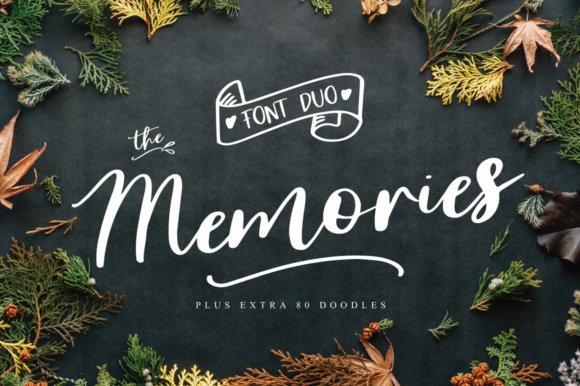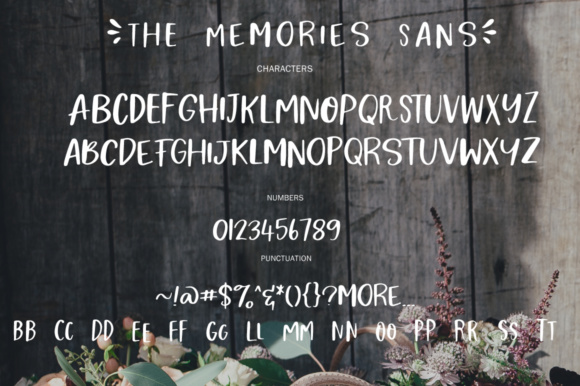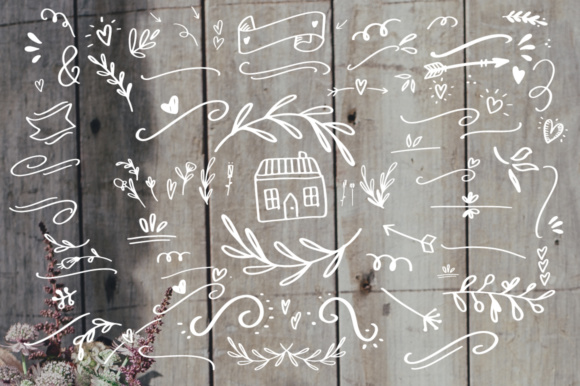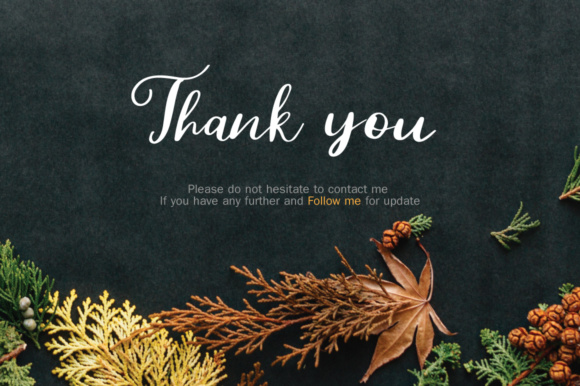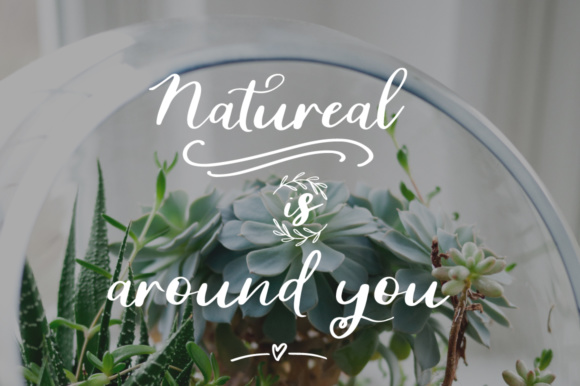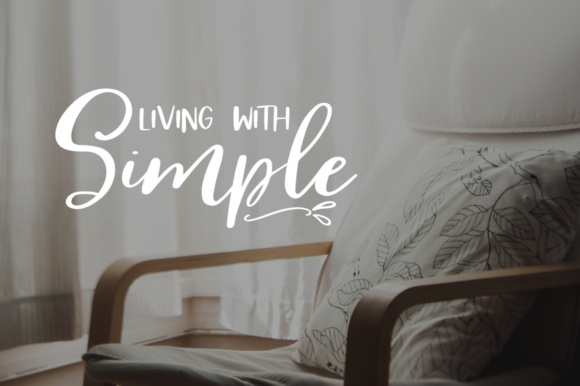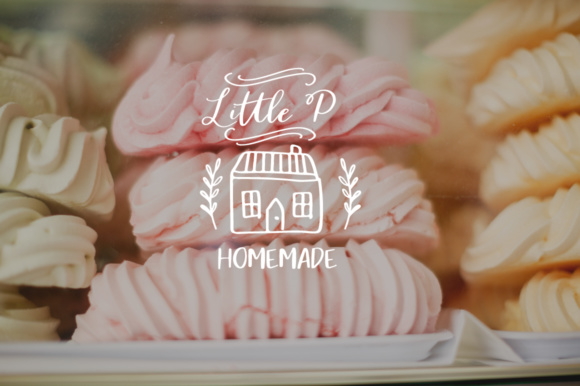
The Memories Font
About The Memories Font
The Memories is a sweet, classic looking font.
Each and every single letter has been carefully created to to allow you to add a playful touch. It has a romantic touch, and is perfect for creating invites, quotes, decorating blog posts and much more.